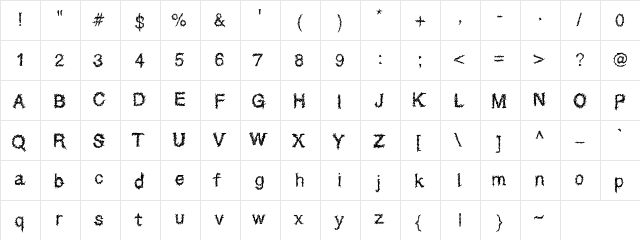
Sparatrap Medium Free Font
Sparatrap Medium
Design Context for Sparatrap
Sparatrap is a composed and adaptable typeface that performs quietly and consistently across a wide range of design contexts.